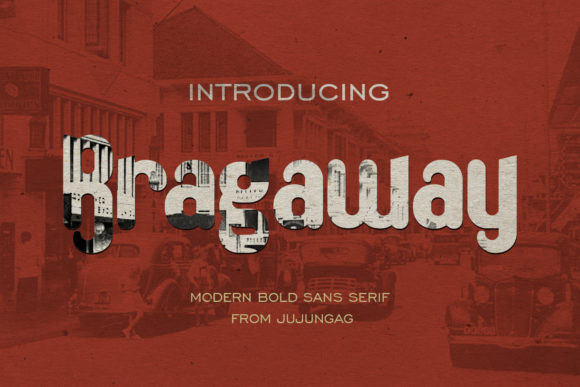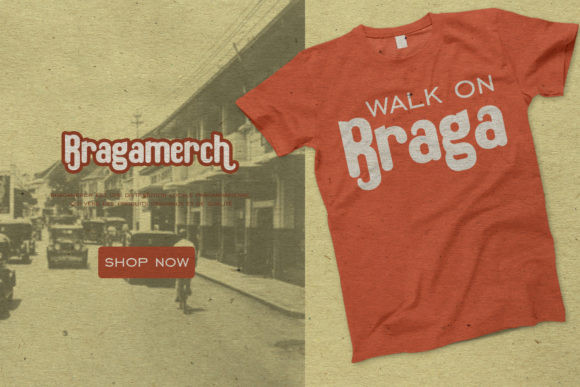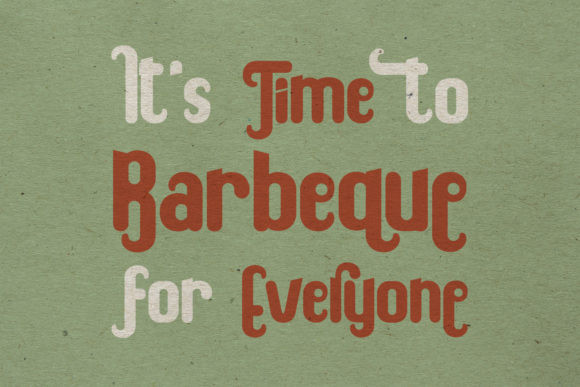
Bragaway Font
Bragaway is a modern display font. It features a simple alternate character with a vintage design. It is perfect for beer packaging, barbershops, magazine, t-shirts, and much more!